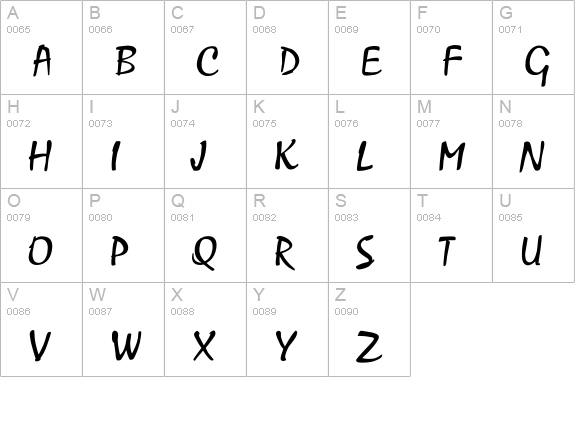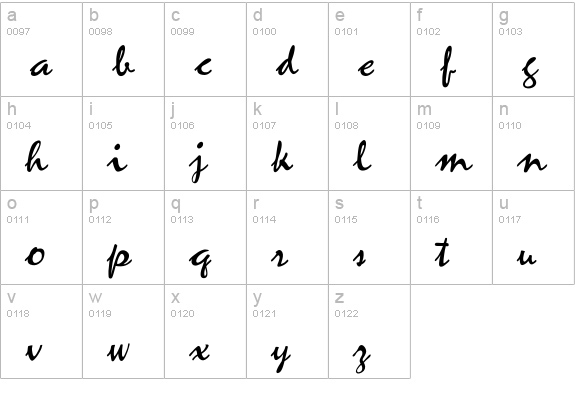
Zephyr Font Details
Zephyr font is a modern and elegant typeface that exudes sophistication and style. Its sleek lines and sharp edges make it perfect for a wide range of design projects, from branding to print materials. The versatility of Zephyr font allows it to be used for both headline and body text, ensuring a cohesive and polished look throughout your design. What sets Zephyr font apart is not only its striking appearance but also the fact that it is available for free download at FontsMarket.com. This means that you can easily access this high-quality font without any cost, making it a valuable addition to your font library. Whether you are a designer looking for a new and unique typeface or someone in need of a stylish font for personal projects, Zephyr font is an excellent choice that combines beauty and accessibility. Download Zephyr font today and elevate your designs with its timeless charm.